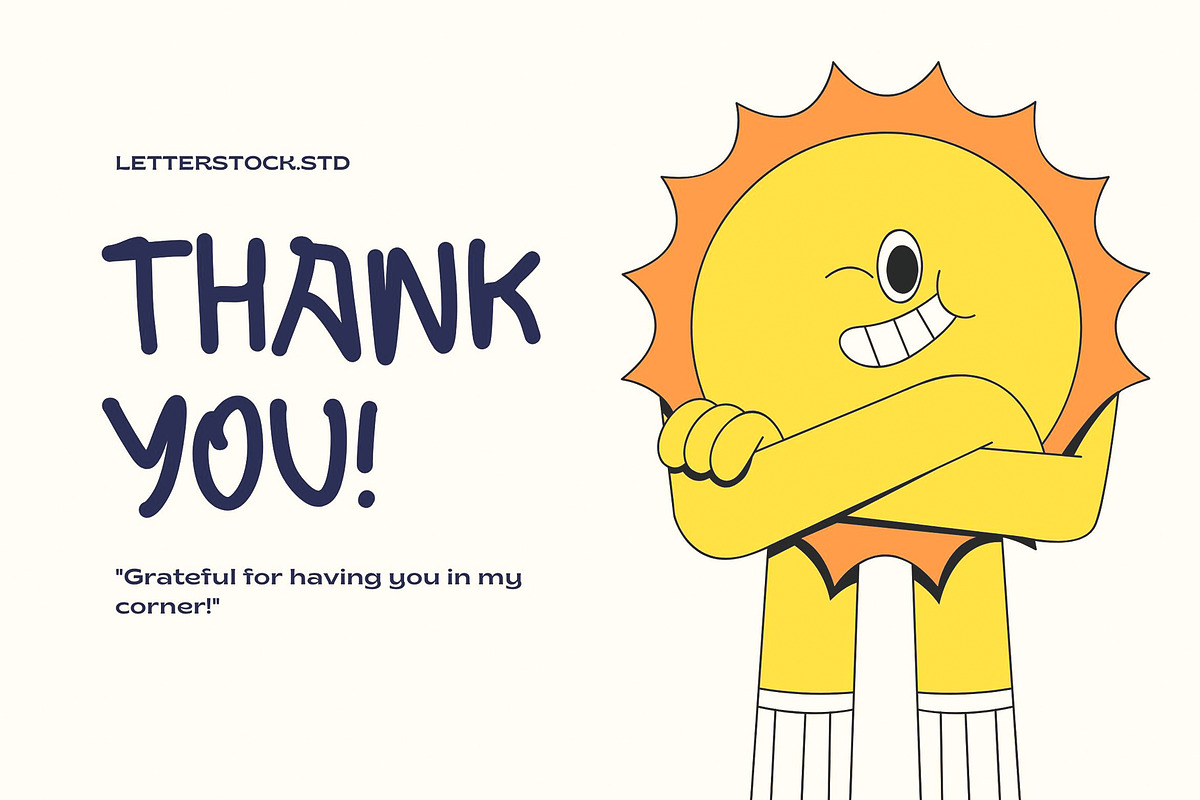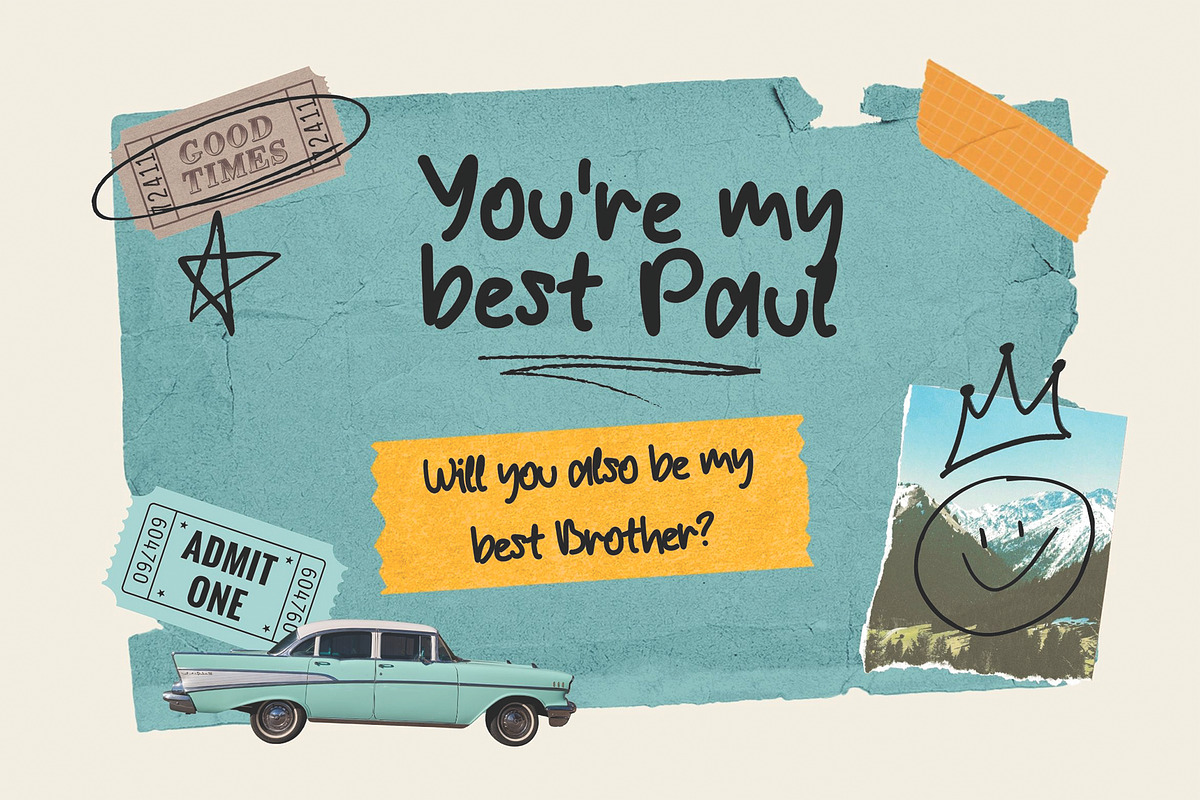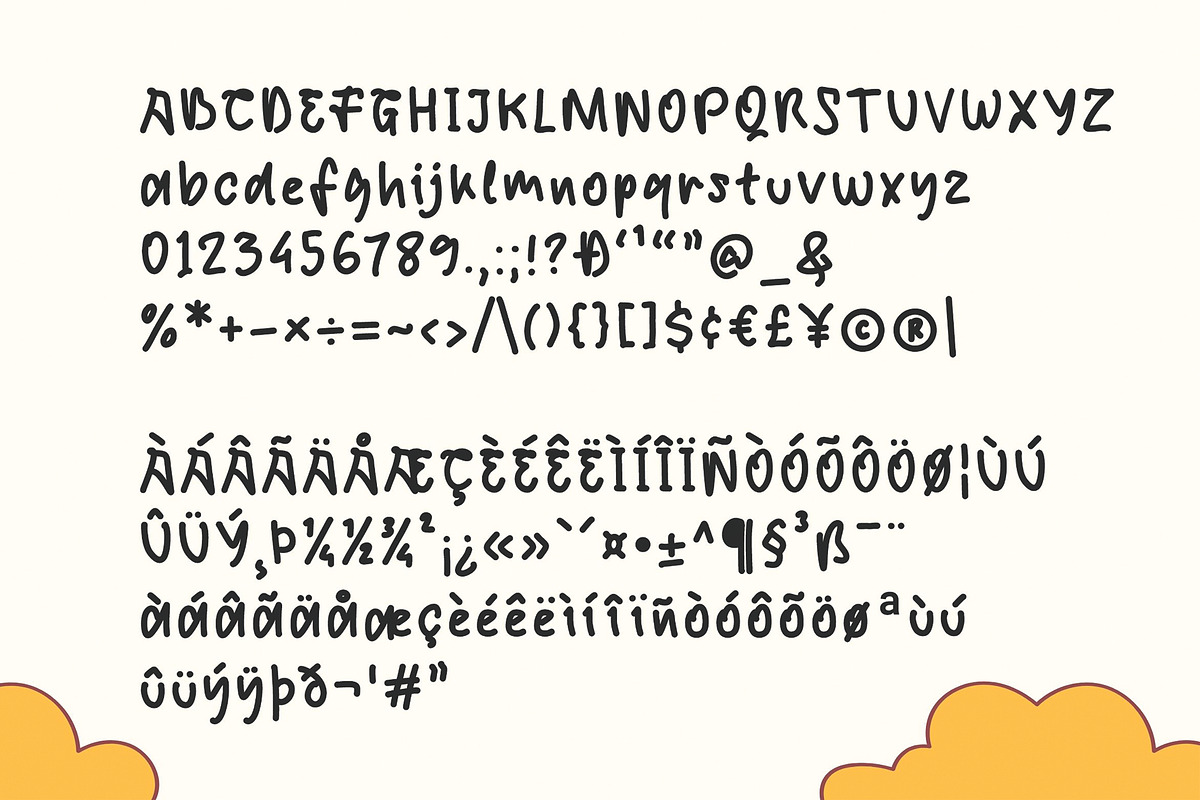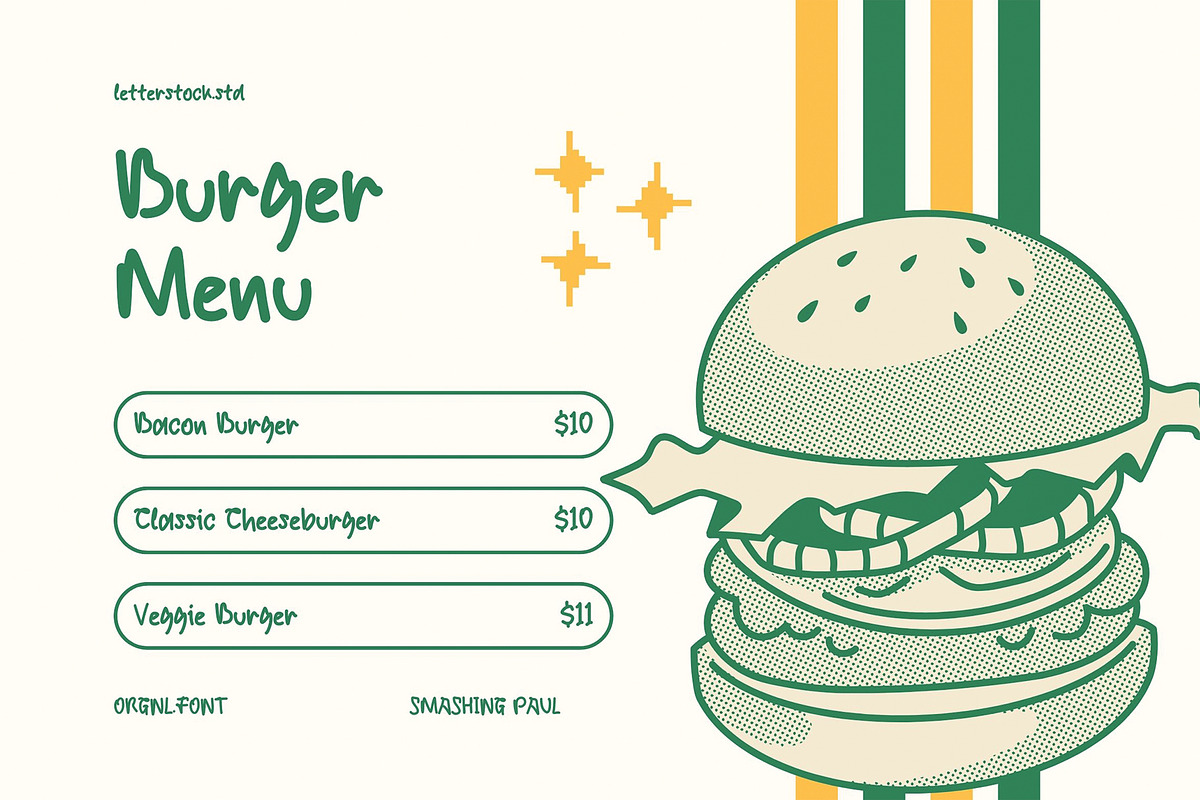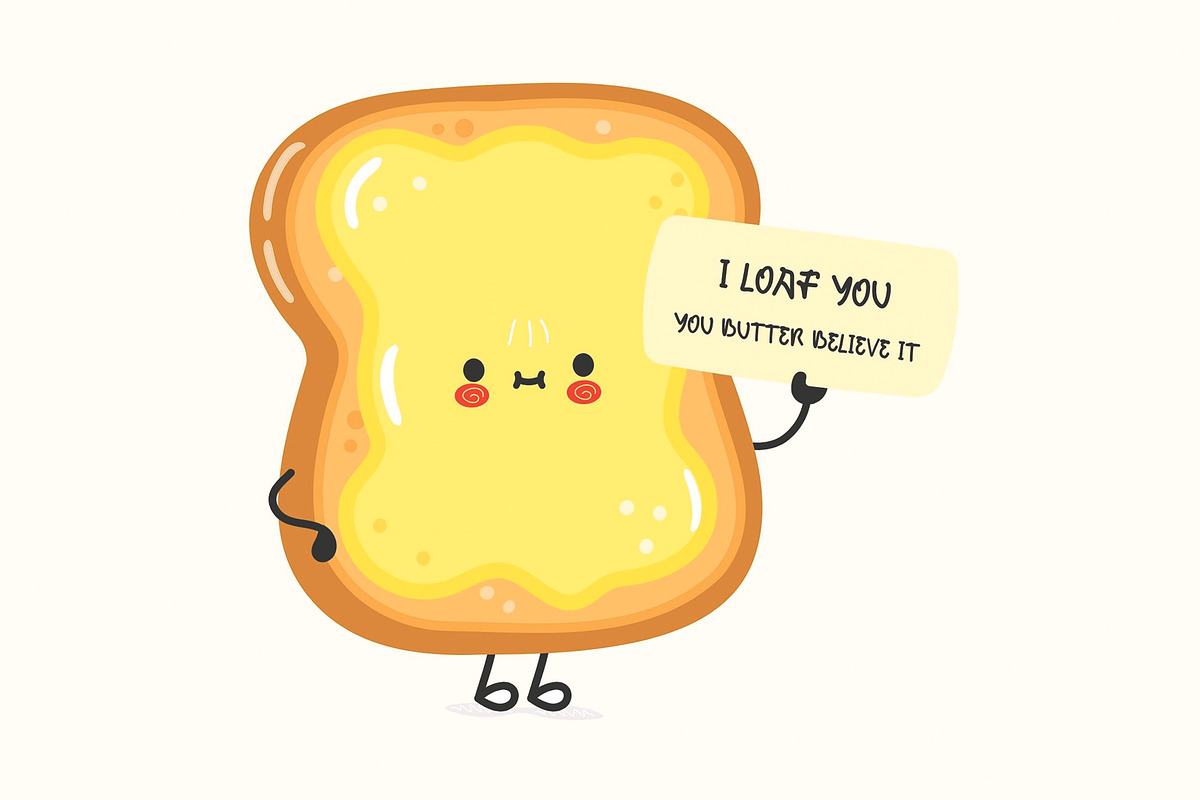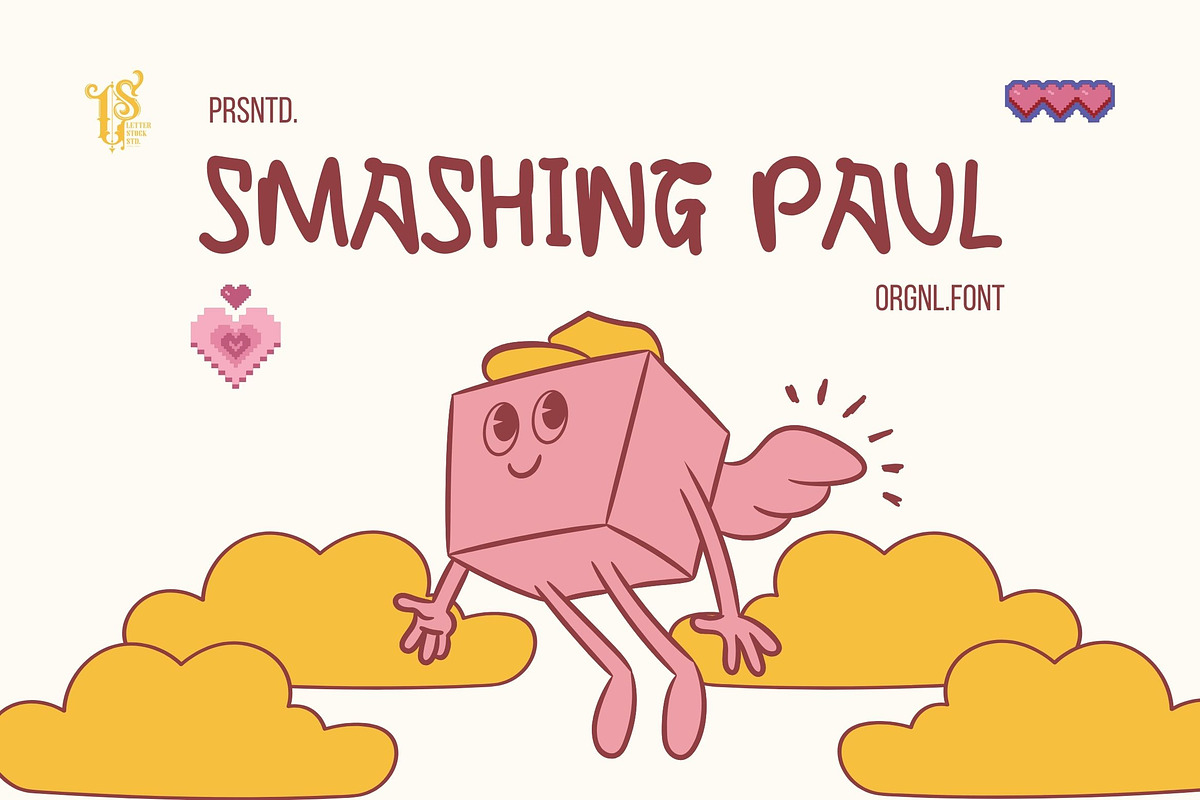
Smashing Paul
Introducing "Smashing Paul" – an original hand-drawn font with retro 60's decorative vibes. Embrace the nostalgia of the past with this charming and playful typeface. Perfect for adding a touch of whimsy to your designs, "Smashing Paul" is ideal for posters, logos, invitations, and more. With TTF, OTF, and WOFF files included, it's easy to bring your creative vision to life.
Original hand-drawn design Retro 60's decorative vibes Perfect for posters, logos, invitations, and more TTF, OTF, and WOFF files included for easy use